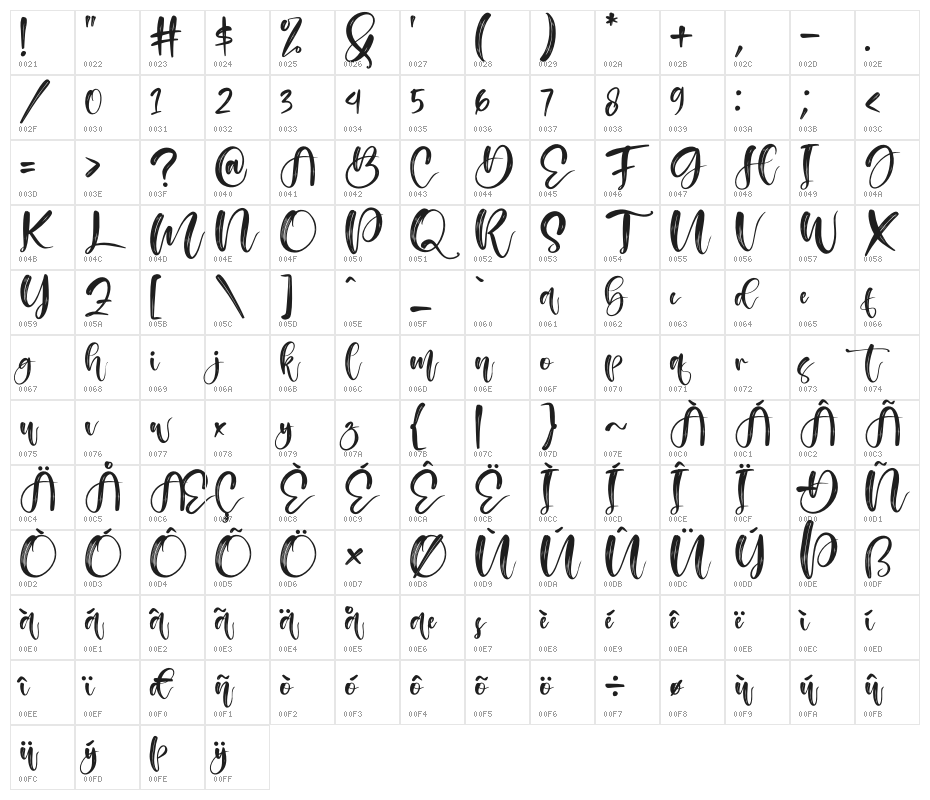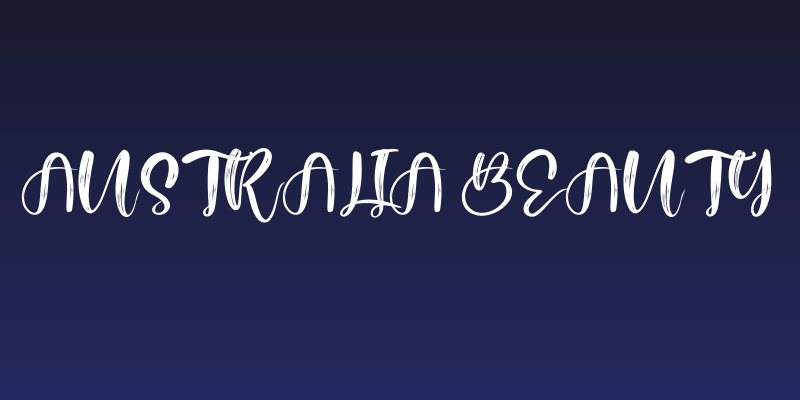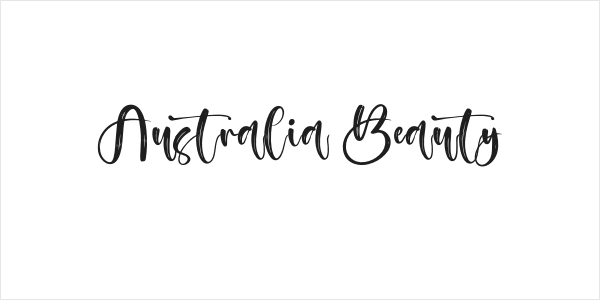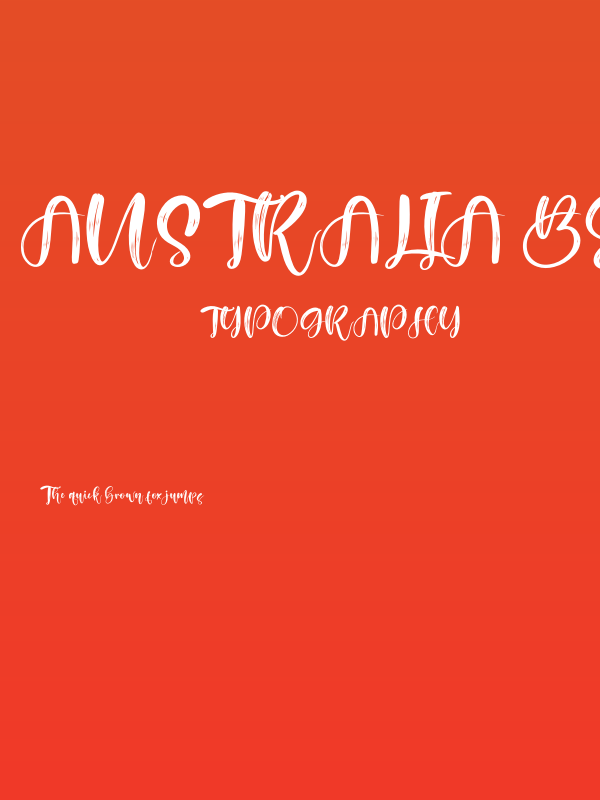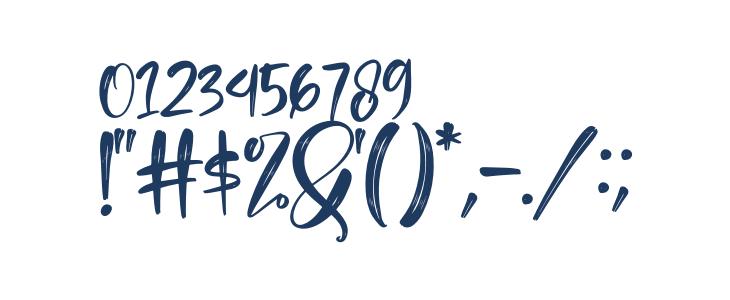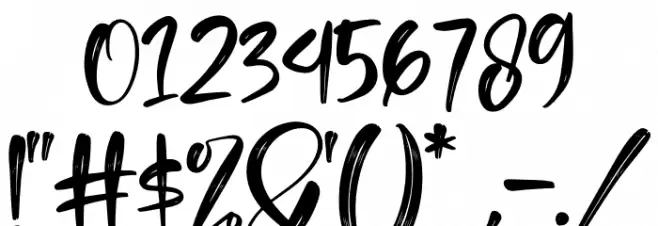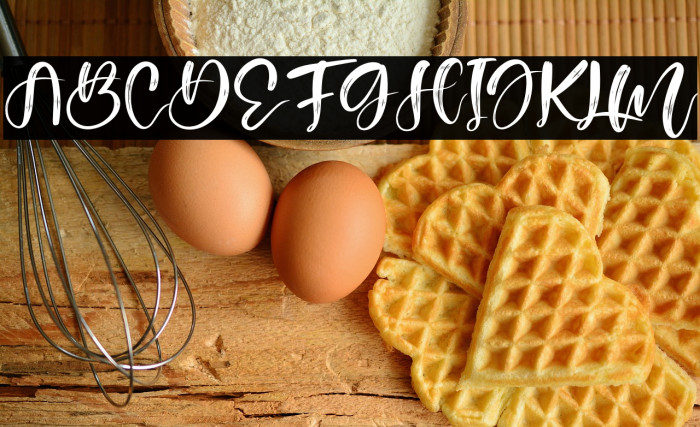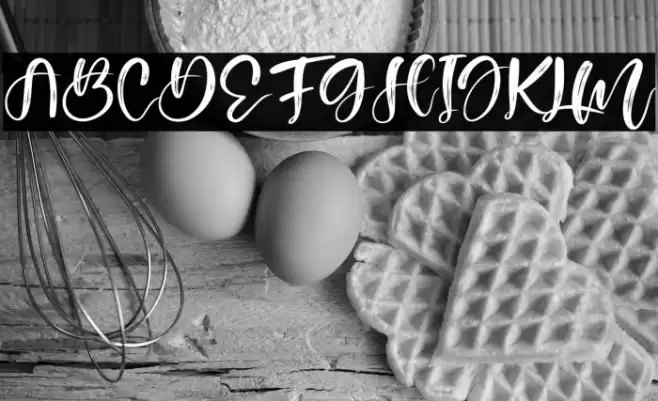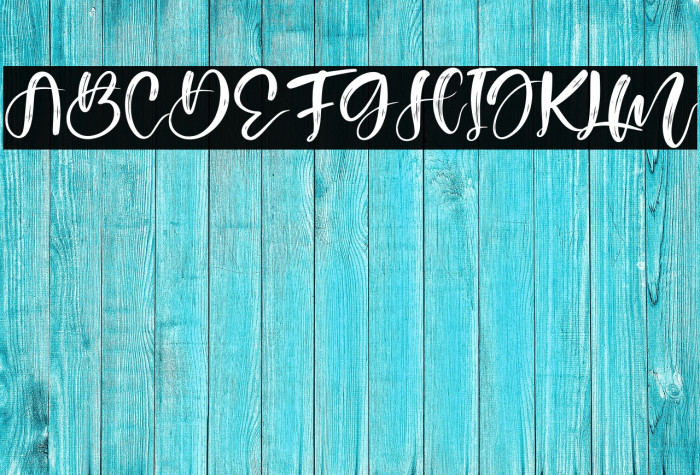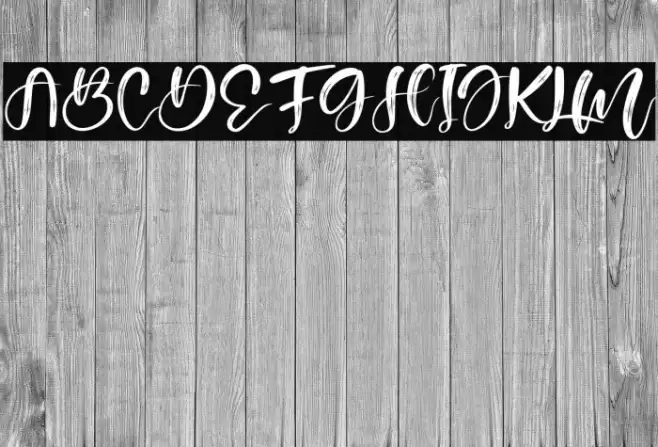
Australia Beauty Font
Australia Beauty Description
This font exudes a lively and expressive character with its bold, flowing script style. The letters are crafted with a sense of movement and flair, featuring thick and thin strokes that create a dynamic contrast. The uppercase letters are particularly striking, with elegant loops and swirls that add a touch of sophistication. The lowercase letters maintain a consistent flow, enhancing readability while retaining the artistic flair. Numbers and special characters are designed to match the overall style, ensuring a cohesive look across all text elements. This font is perfect for projects that require a personal, handwritten touch, such as invitations, greeting cards, or branding materials.